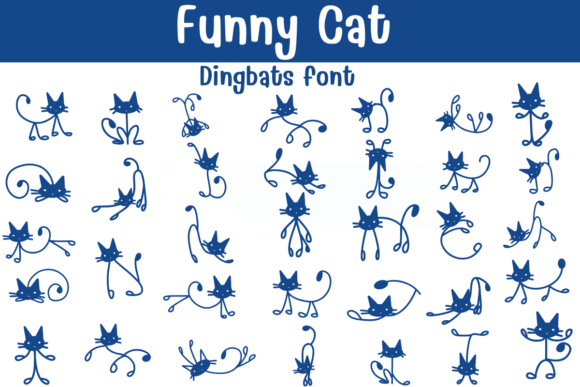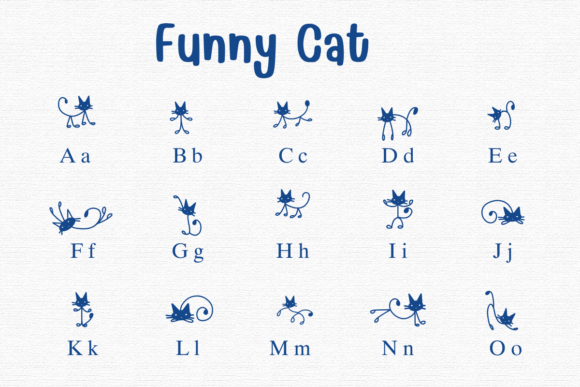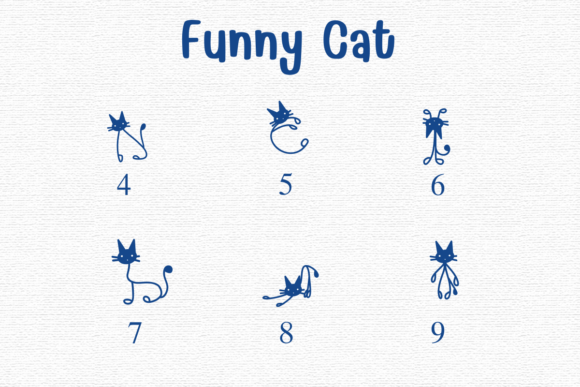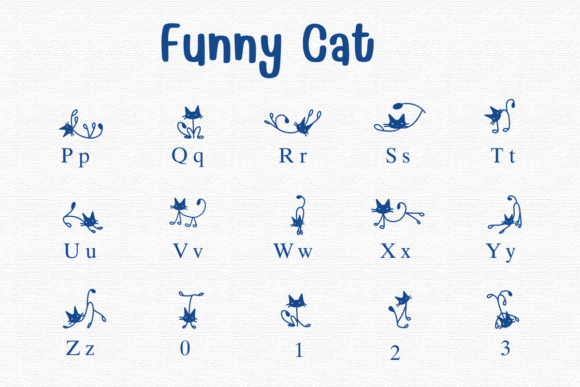
Funny Cat Font
About the Funny Cat Font
We are excited to introduce Funny Cat Font, a must-have typeface for any serious designer. Bring a dose of adorable whimsy to your designs with the Funny Cat Dingbats Font! This playful collection features quirky hand-drawn cat doodles in all sorts of silly poses and expressions. Perfect for cat-themed projects, greeting cards, kids’ books, crafts, and anything that needs a touch of feline fun.
Funny Cat Font’s playful hand-drawn style works best in headlines, short captions, logos for pet-related businesses, and children’s book illustrations. It’s also ideal for packaging designs, especially for products targeting a younger demographic or those with a lighthearted brand identity. However, avoid using it for body text or lengthy paragraphs; its informal nature makes it unsuitable for large blocks of text or applications requiring high readability.
This font’s core personality is undeniably playful and friendly. To balance its whimsical energy, pair it with a clean sans-serif font like Open Sans for body copy or a more structured serif like Merriweather for a touch of sophistication. For a more cohesive playful feel, consider pairing it with another hand-drawn or slightly quirky font, but ensure legibility remains a priority.
Avoid pairing Funny Cat Font with overly serious or formal typefaces. The contrast would be jarring and detract from the overall design aesthetic. Instead, maintaining a consistent lighthearted approach through your font pairings will reinforce the font’s inherent charm.
Funny Cat Font Usage Examples
Funny Cat Font Example